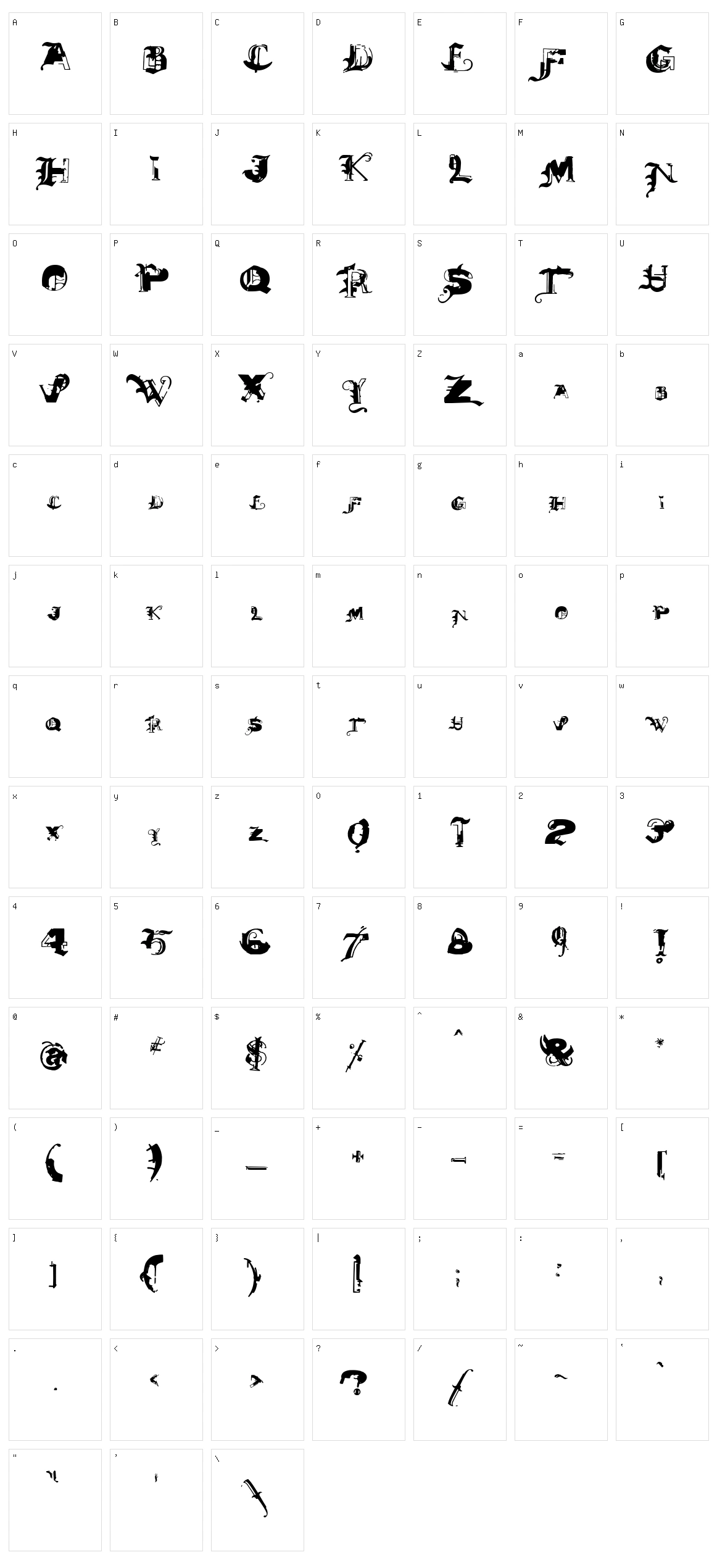
The free font DeathMix is carefully designed by Fontourist, showcasing a thoughtful balance of creativity and usability and belongs to the Gothic font family. When you download the ZIP file, it contains only 79.4 KB of font files, making it lightweight and quick to download. Please review the license details below to understand permitted usage and distribution rights. If license information is not available, we recommend using this font for personal projects only or contacting the author directly for commercial usage permissions.